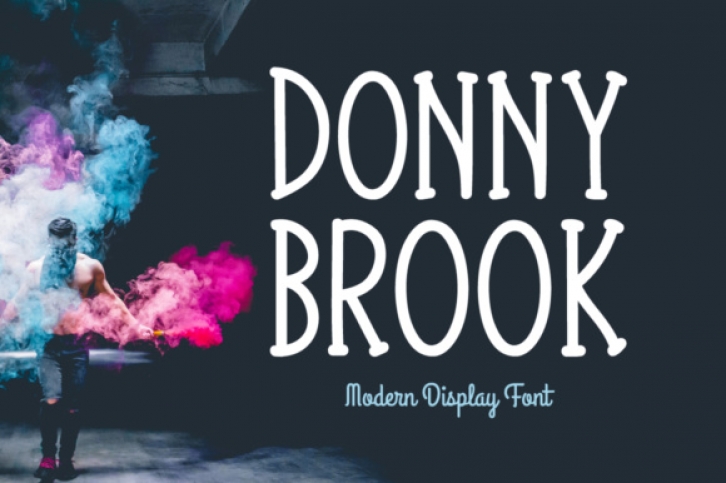
The Donnybrook is a beautiful handwritten font. It’s perfect for stationery, logos, t-shirt, paper, print design, website header, photo frame, flyer, music cover, poster, image slider and much more.